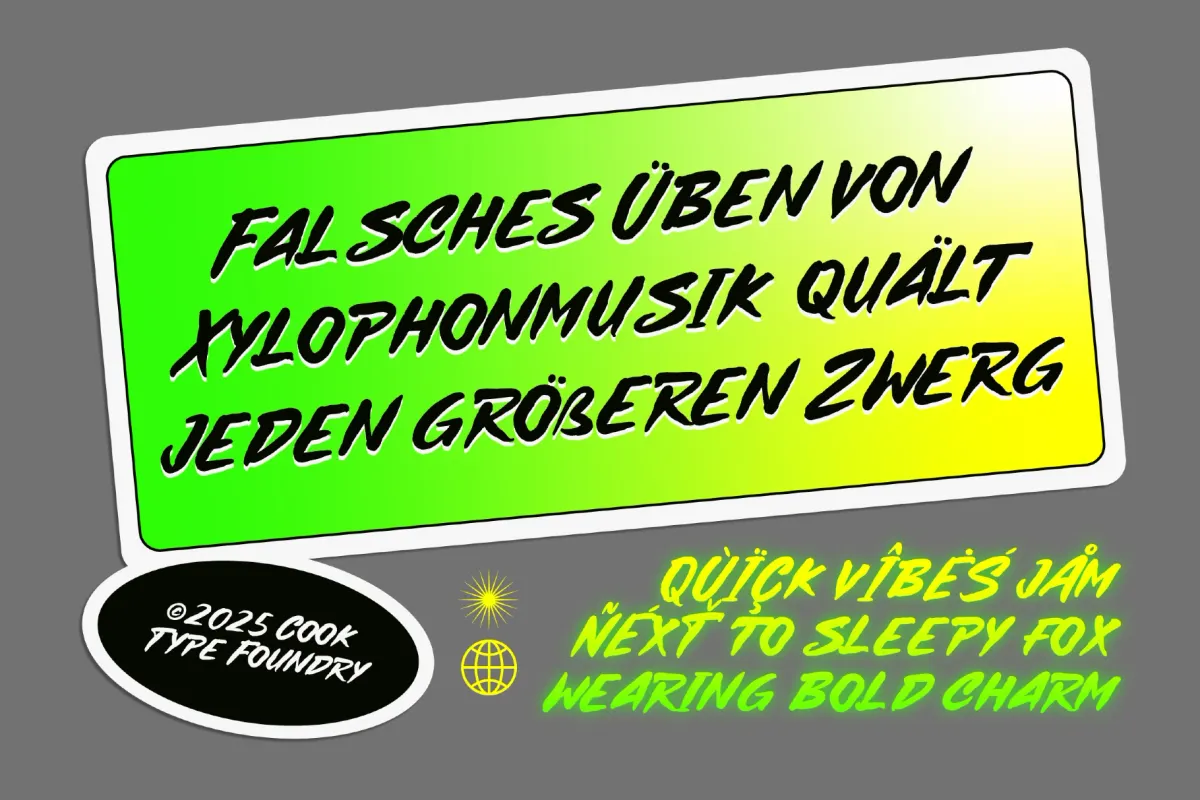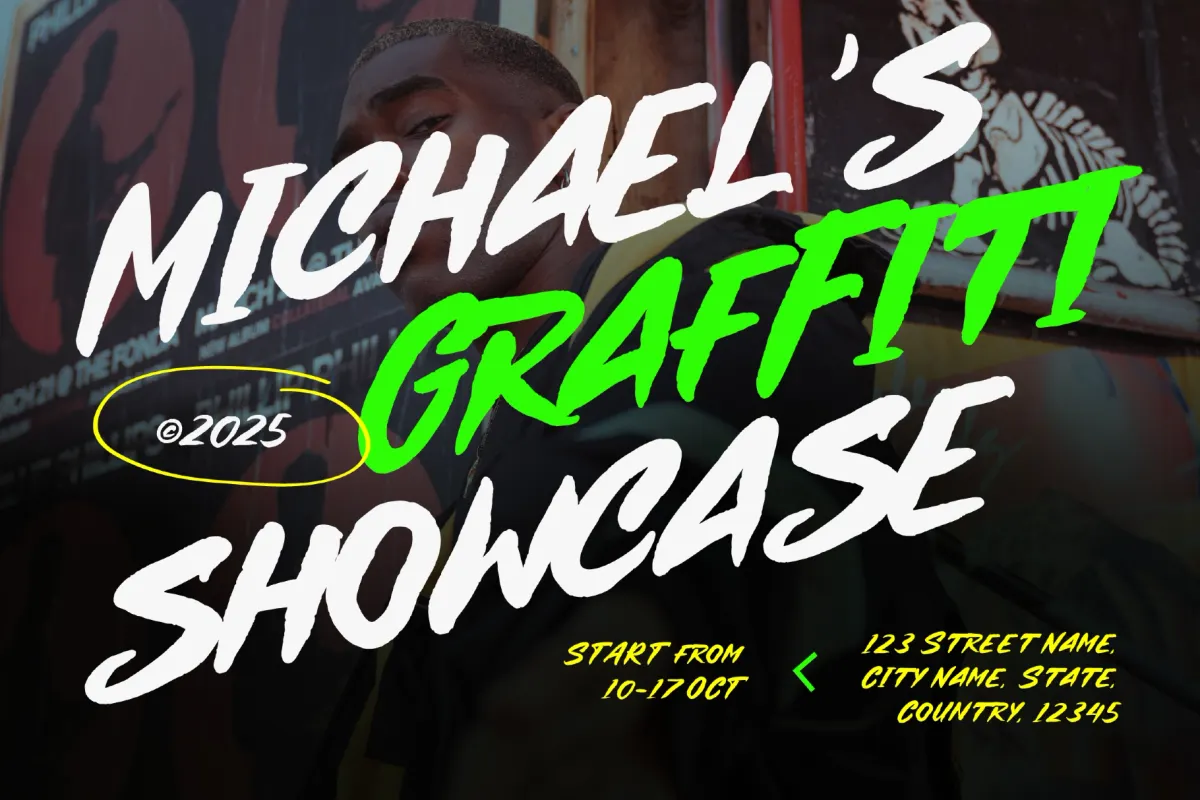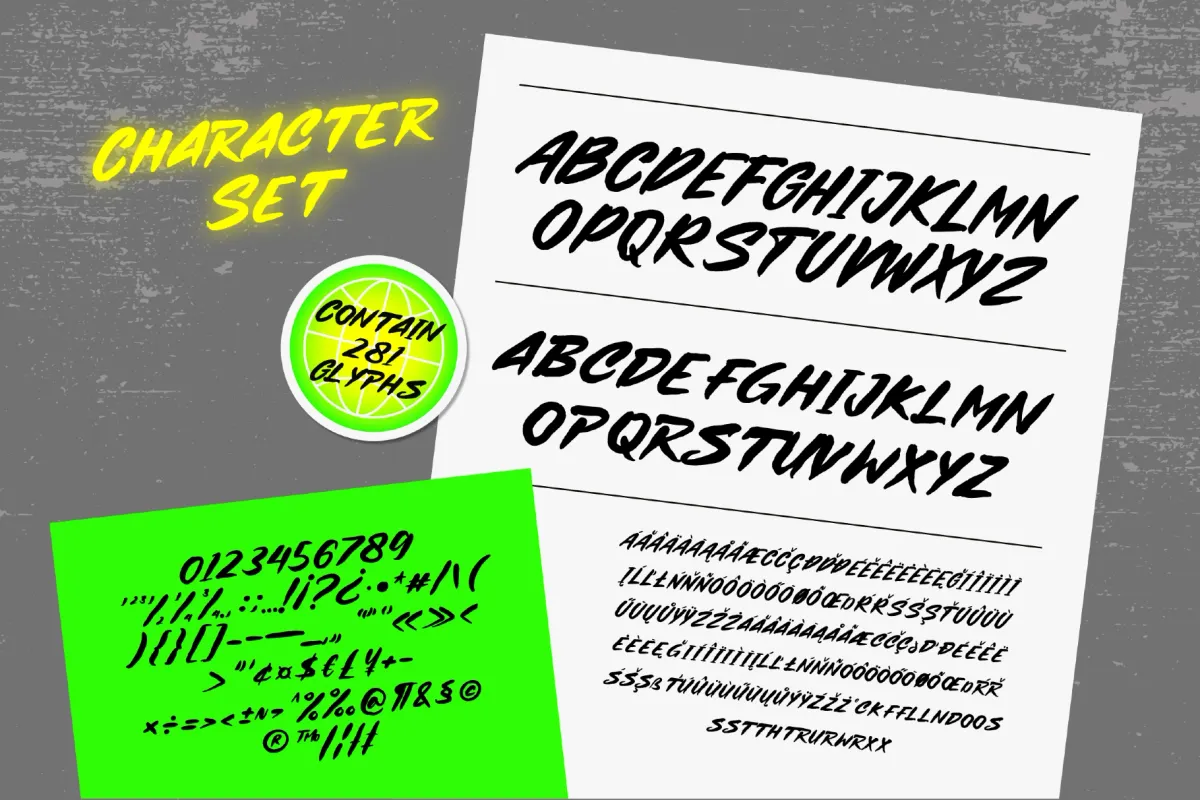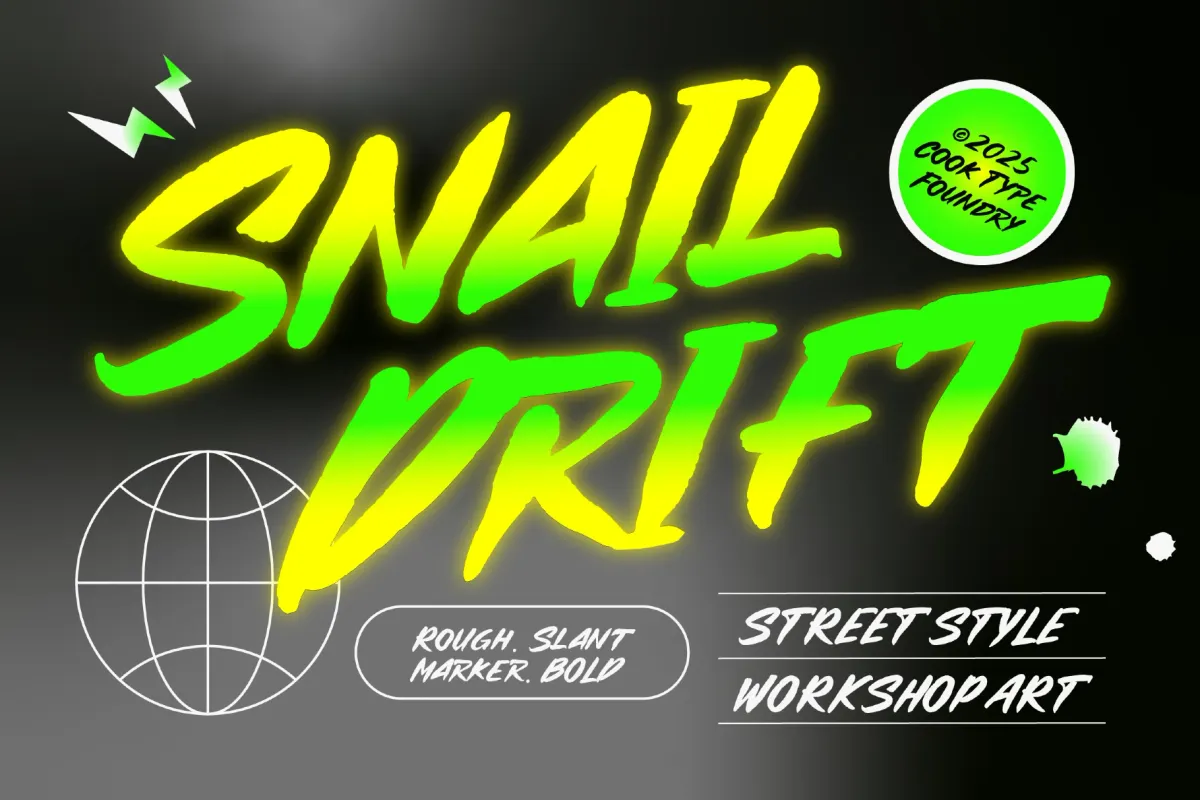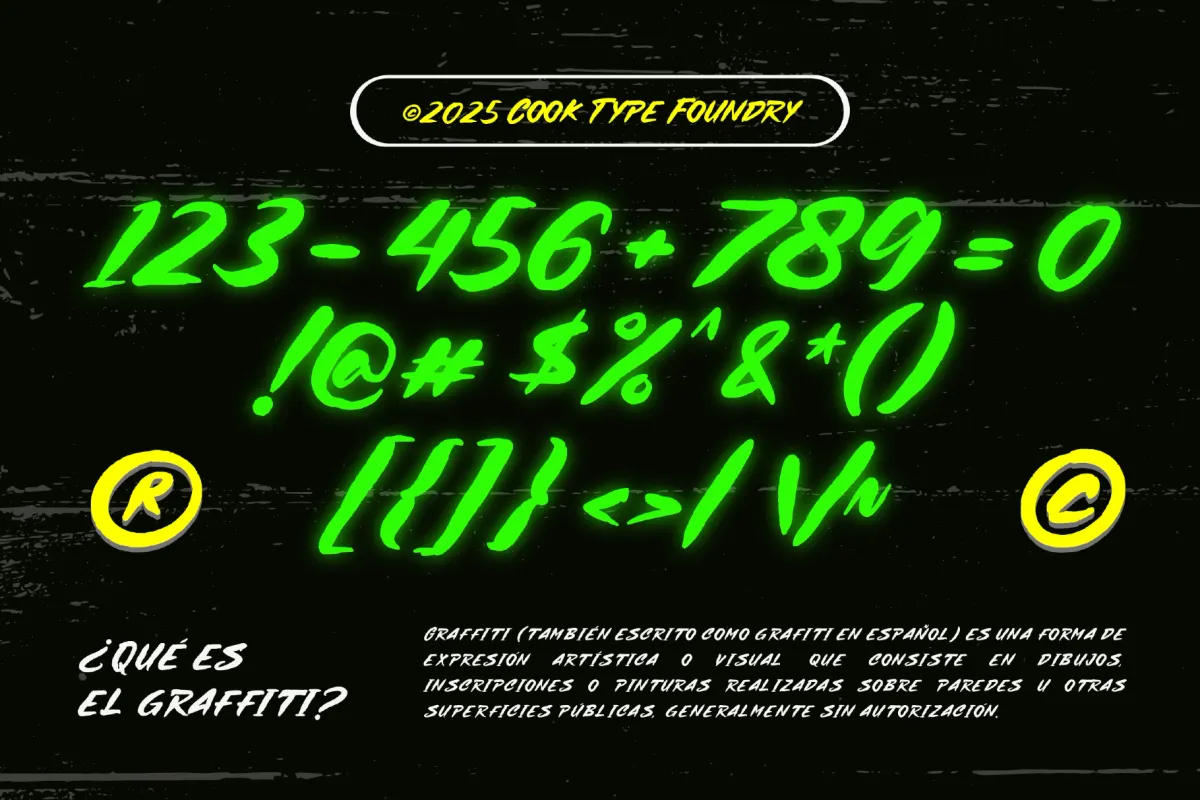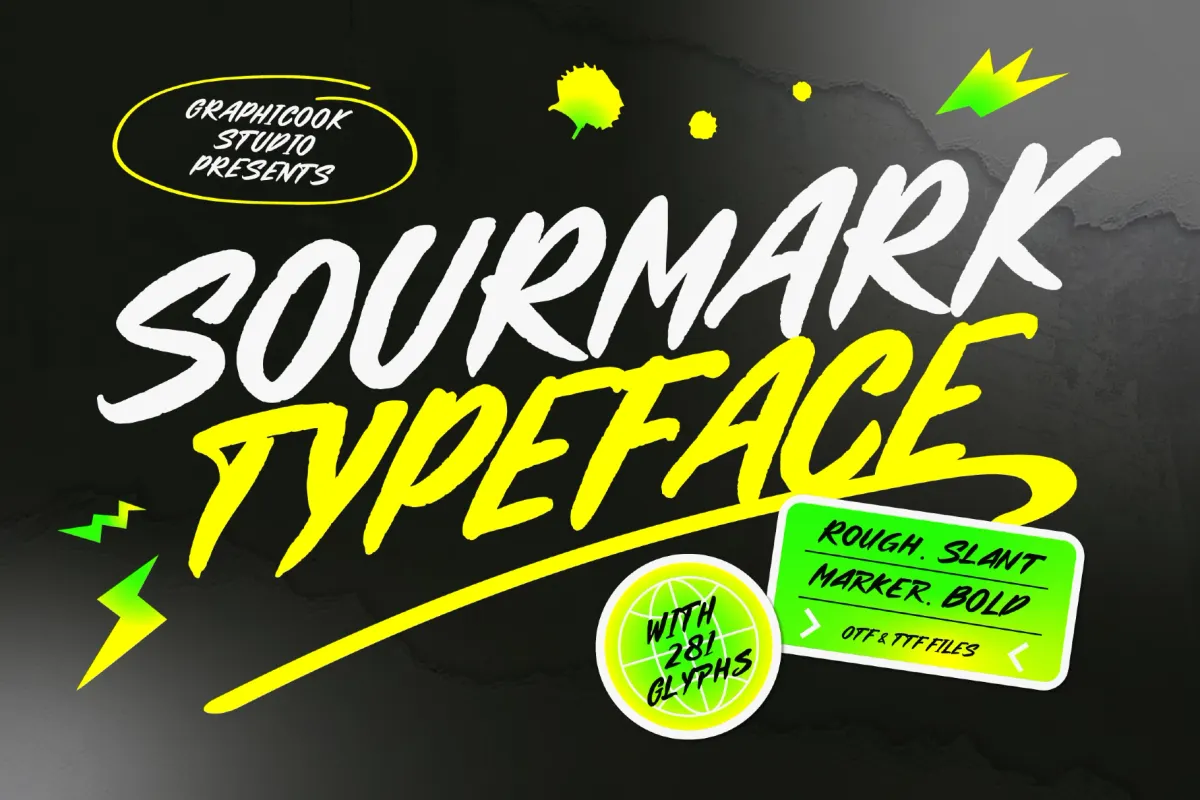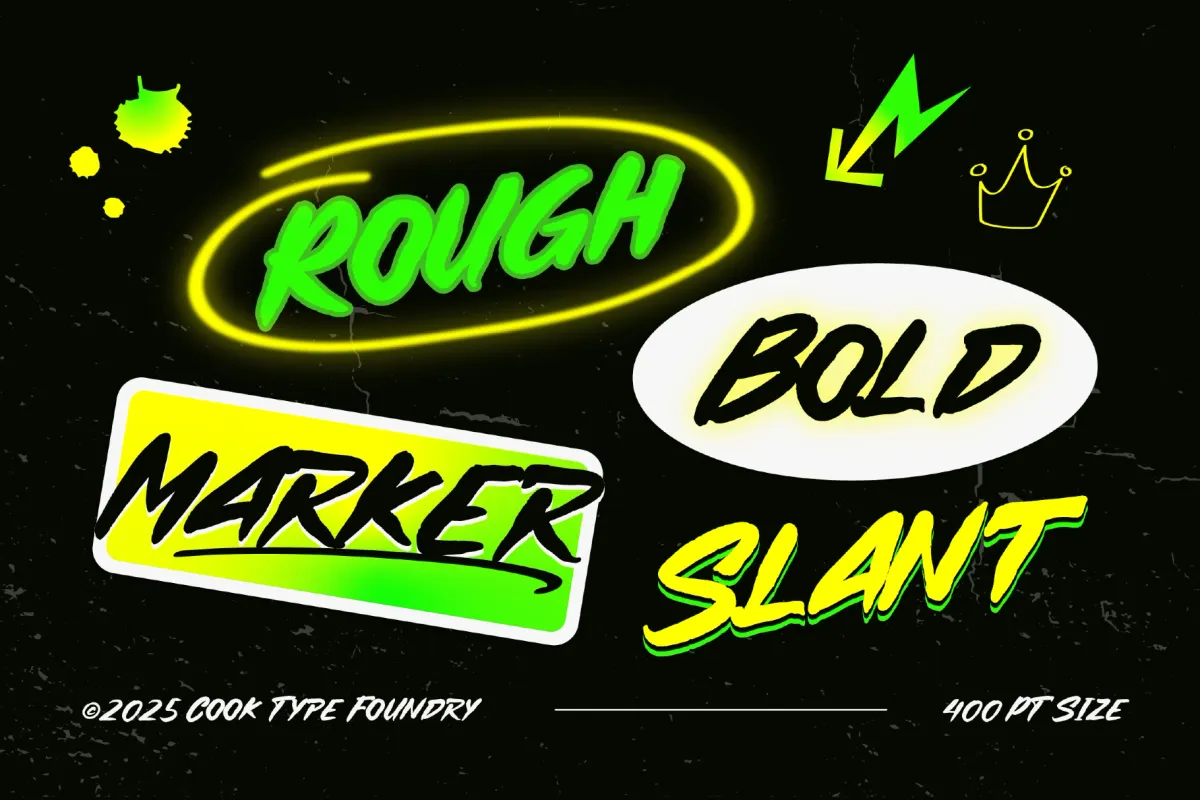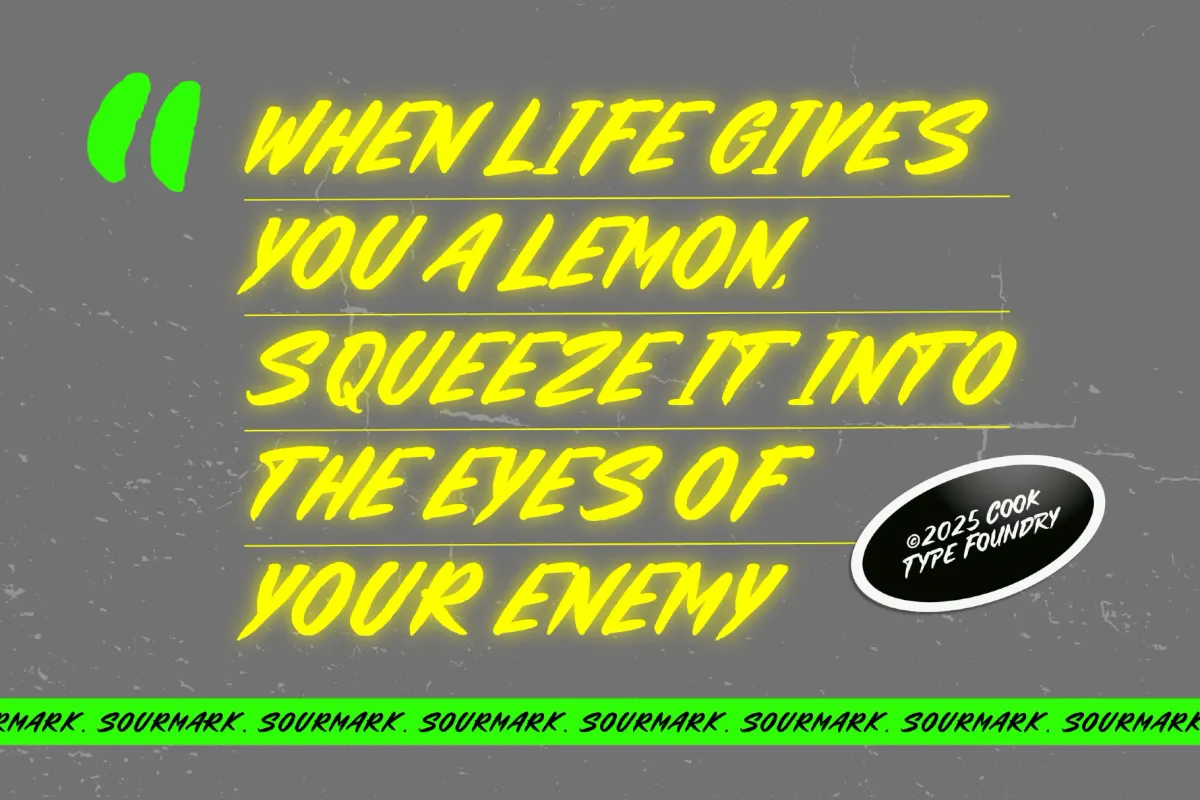
Sourmark Font
Sourmark
Sourmark is a graffiti-style marker font with a bold, edgy look. Its rough, handcrafted letterforms make it perfect for designs that want to be loud, expressive, and visually impactful.